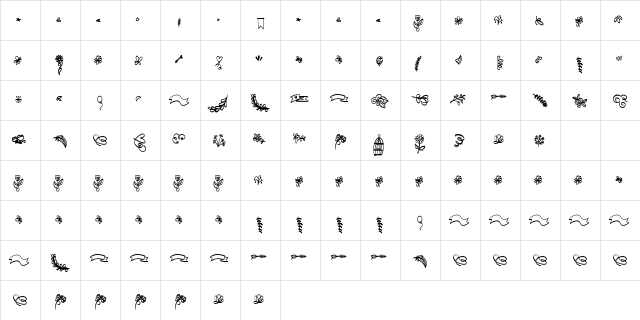
FB-Doodled Regular
Design Context for FB-Doodled Typeface
FB-Doodled is a composed and adaptable typeface that performs quietly and consistently across a wide range of design contexts.